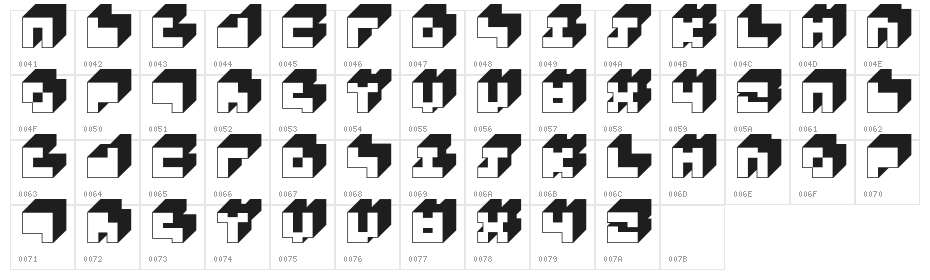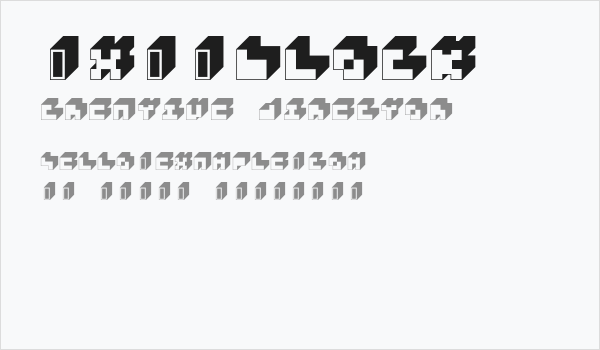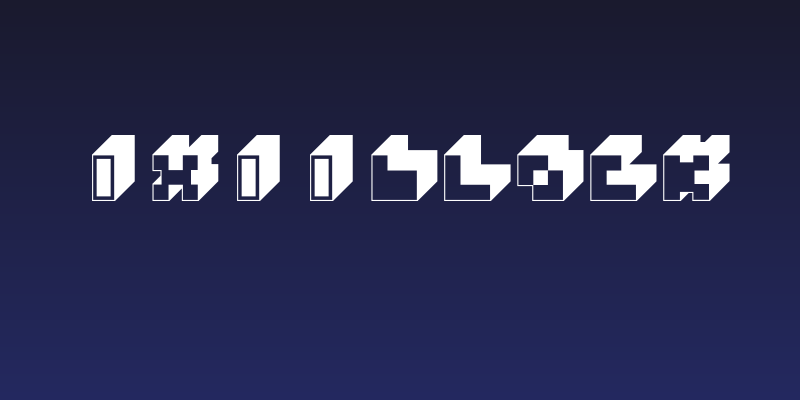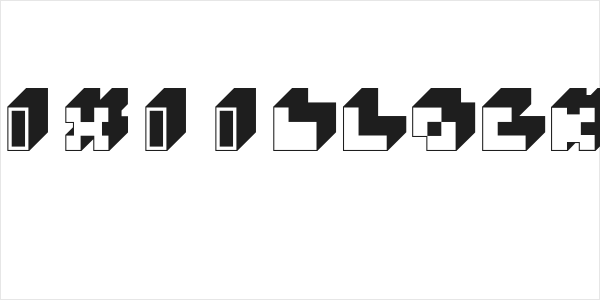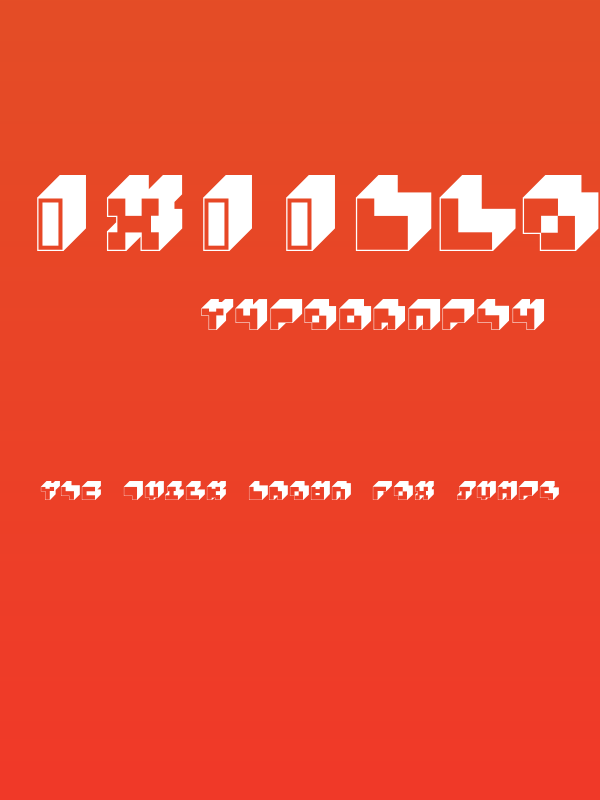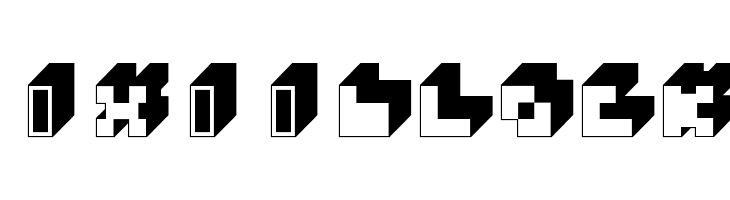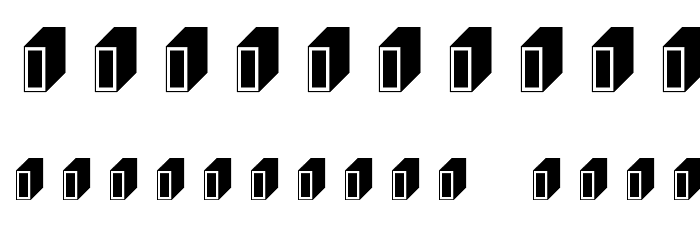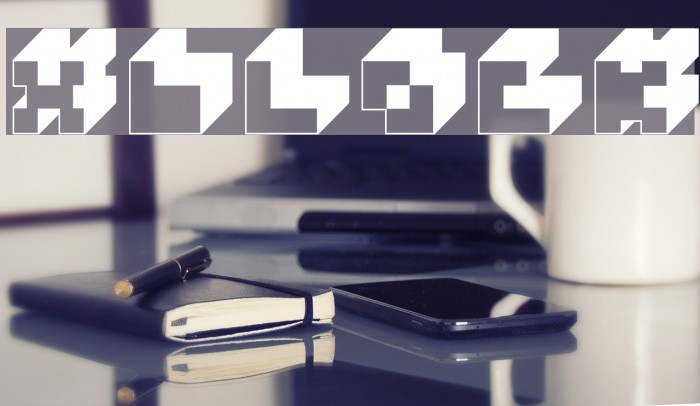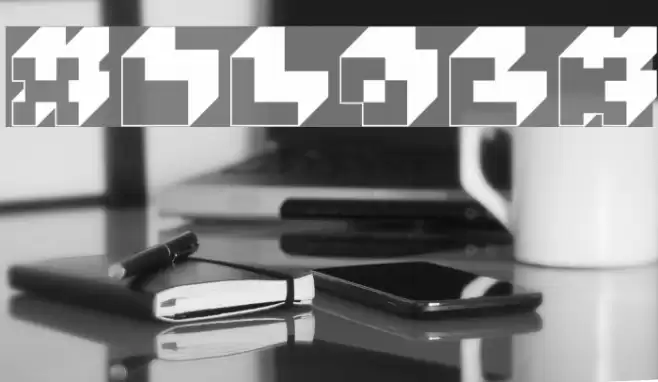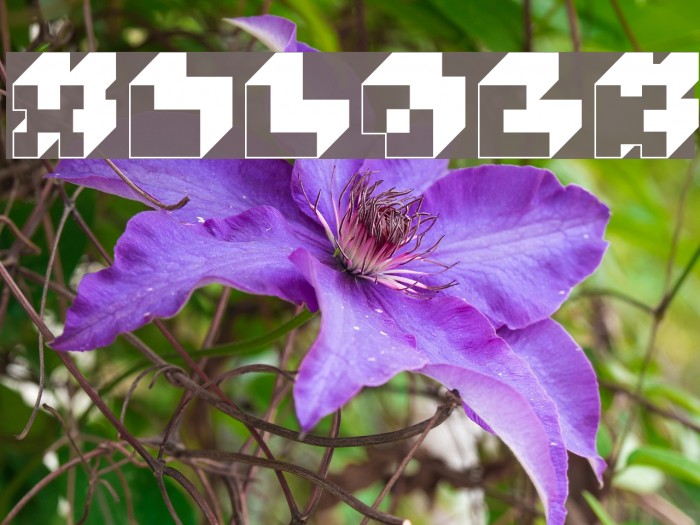
3x3-block Font
3x3-block Description
This font features a bold, three-dimensional block style with a distinct geometric design. Each character is constructed with a solid, shadowed effect that gives the impression of depth and structure. The angular, cubic shapes create a modern and futuristic aesthetic, making it stand out with its unique visual impact. The characters are uniformly wide, contributing to a cohesive and consistent appearance across the alphabet. This font's strong lines and sharp angles make it ideal for attention-grabbing designs.
| Overall Style | Modern, Futuristic |
| Proposed Projects | Ideal for video game titles, tech-themed posters, futuristic branding, and digital artwork. |